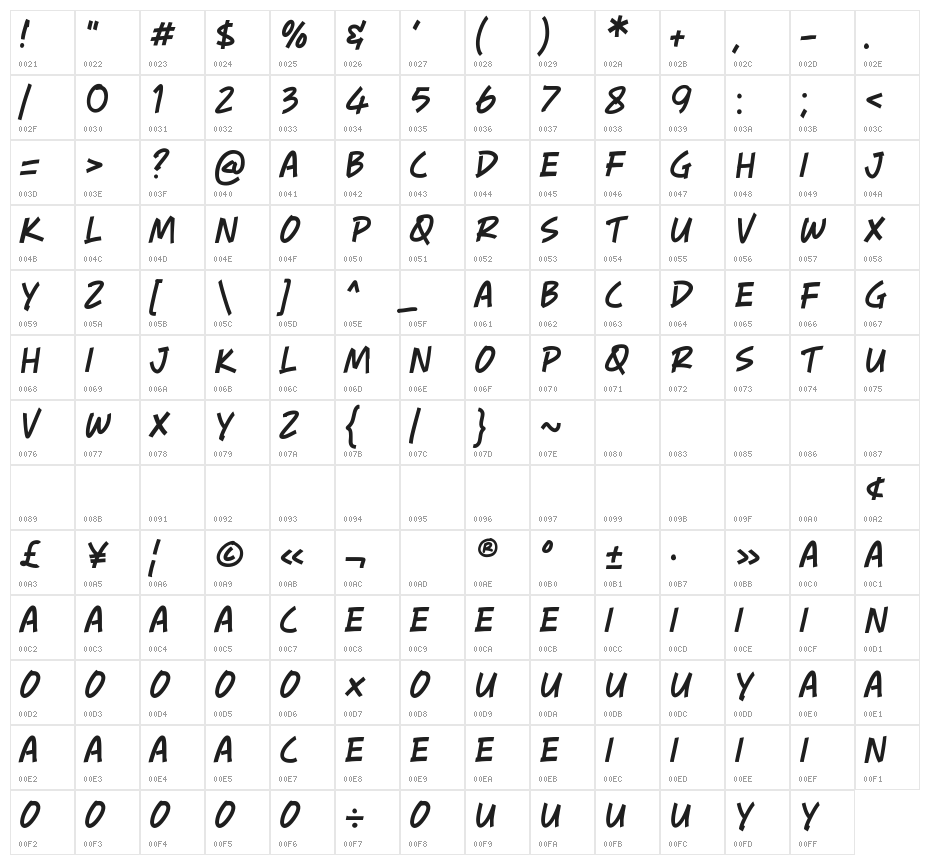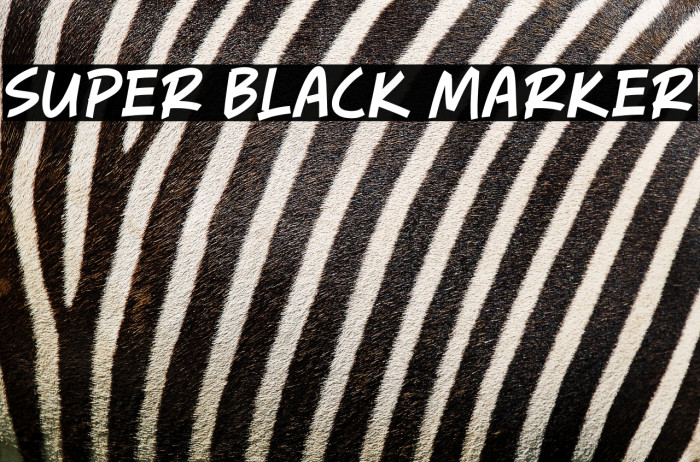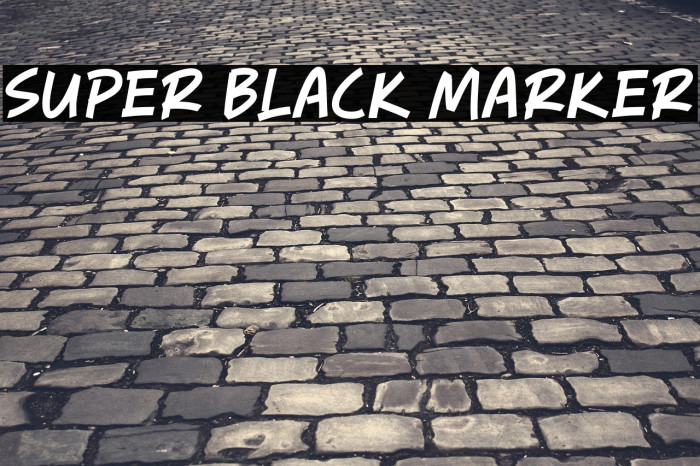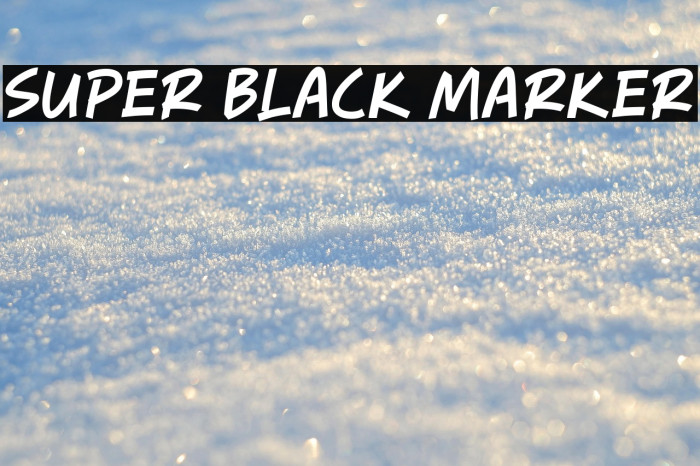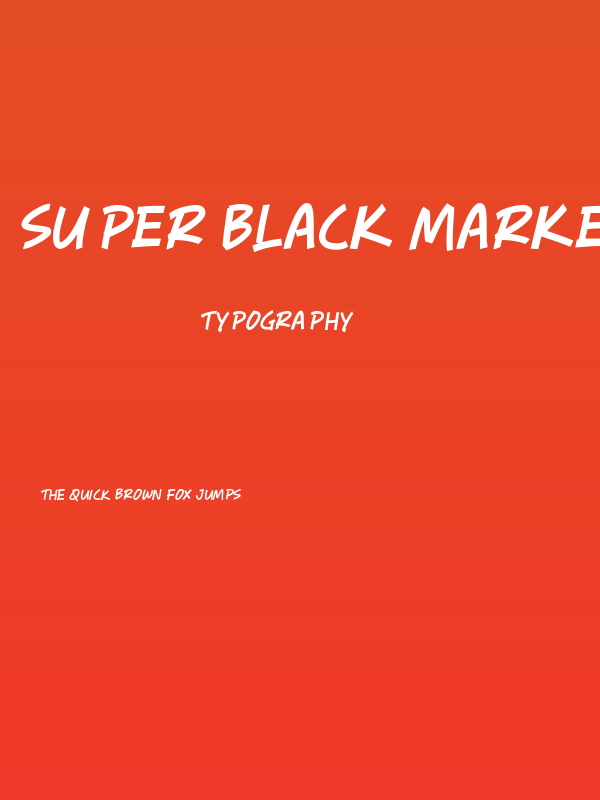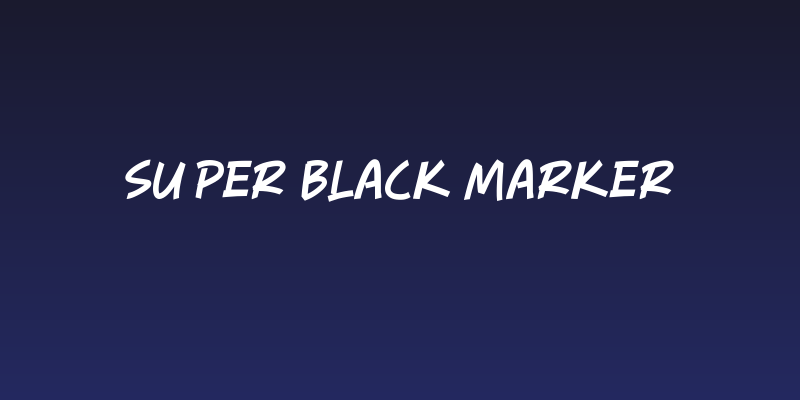
Super Black Marker Font
Super Black Marker Description
This font exudes a bold and energetic style, reminiscent of handwritten marker strokes. The letters are slightly slanted, giving a dynamic and informal appearance. Each character is crafted with a consistent thickness, providing a uniform look across the alphabet. The numbers and special characters maintain the same lively and expressive quality, making them easily legible. The font's playful nature is ideal for projects that require a personal touch or a casual vibe. Its design is both modern and approachable, suitable for a variety of creative applications.
| Proposed Projects | Ideal for posters, greeting cards, social media graphics, and branding that requires a personal and casual touch. |